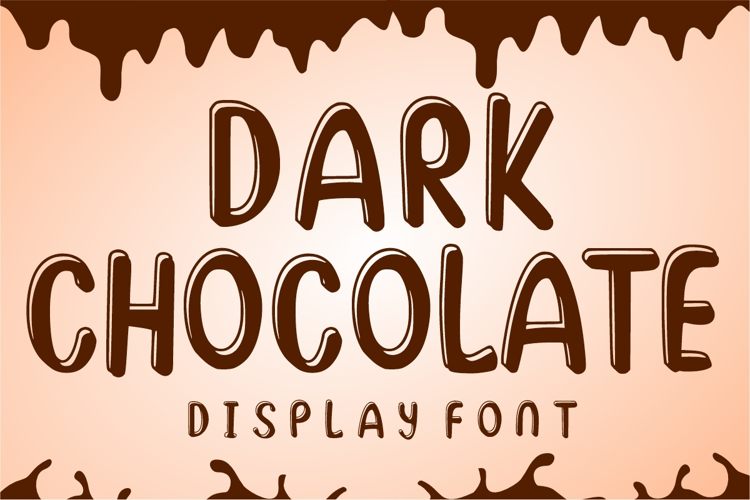
DARK CHOCOLATE
DARK CHOCOLATE is a Funny, Cartoon, childish, Sweet, easy-to-read display font that conveys impeccable friendliness. Whether you’re using it for crafts, digital designs, Logo Text, presentations, cover books, or making greeting cards, this font is the right choice.